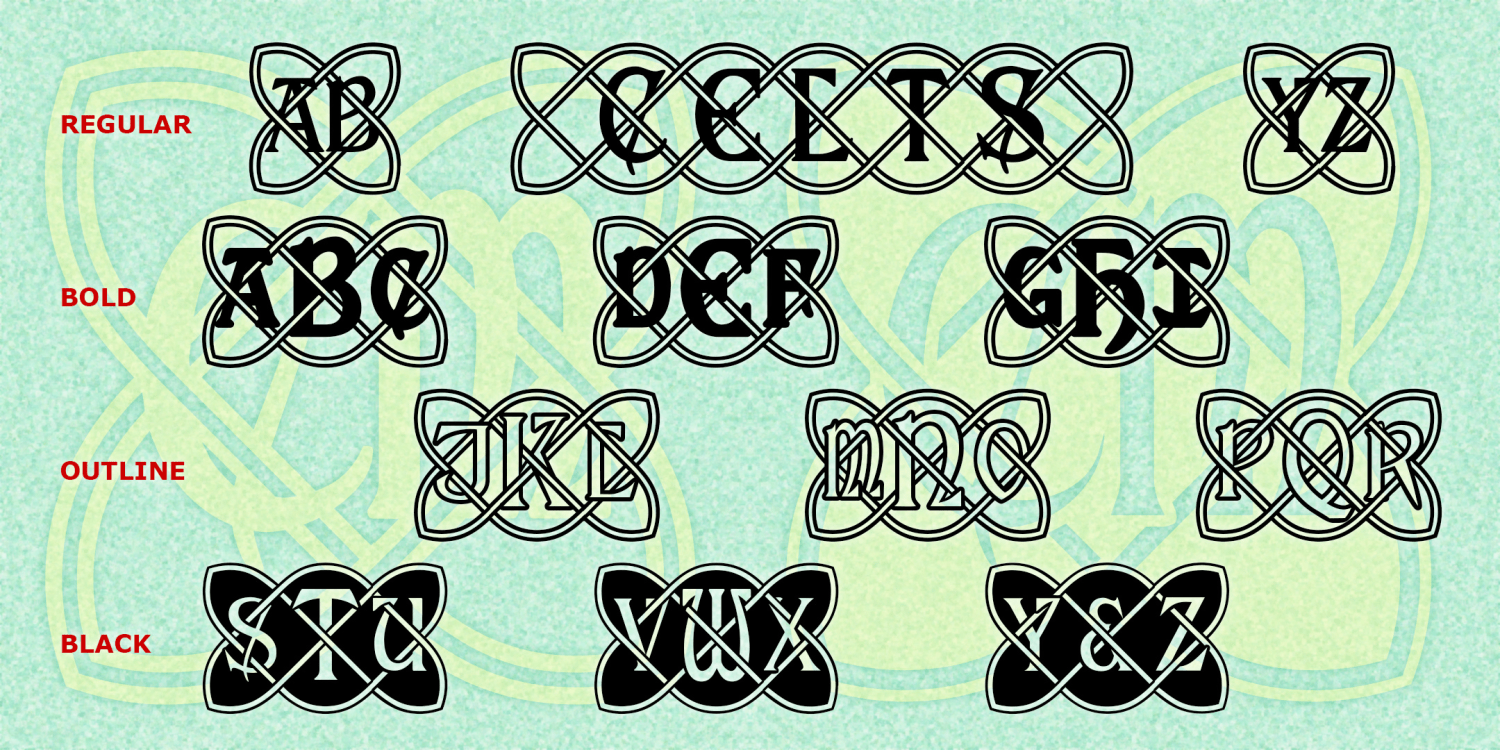
Celtic Knot Monograms
About Celtic Knot Monograms
Celtic Monograms is a set of 4 fonts that let you create custom 1-, 2-, or 3-letter monograms with a beautiful continuous line design known as a Celtic knot. The letters, adapted from my Roosevelt font, are entwined within the knot.